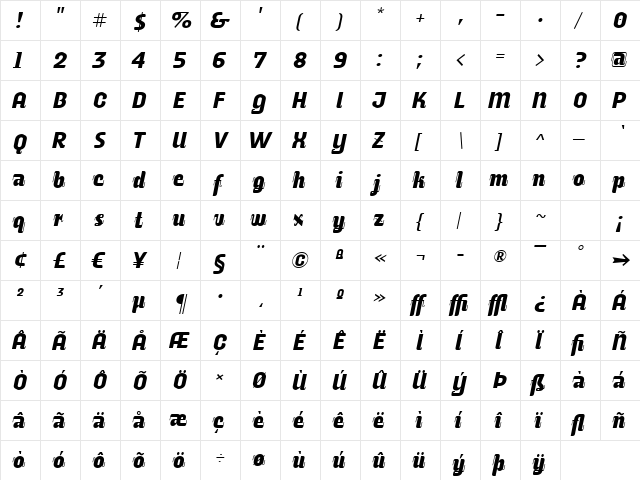
ALusine Oblique
Design Context for ALusine Typeface
ALusine takes a measured approach to typography — its balanced proportions and neutral character make it a reliable workhorse for both digital and print work. Its italic angle brings a sense of urgency and motion to the letterforms.
Pro Tip: Try ALusine for annotation and caption copy alongside an upright companion — the contrast in angle creates a dynamic but ordered typographic system.